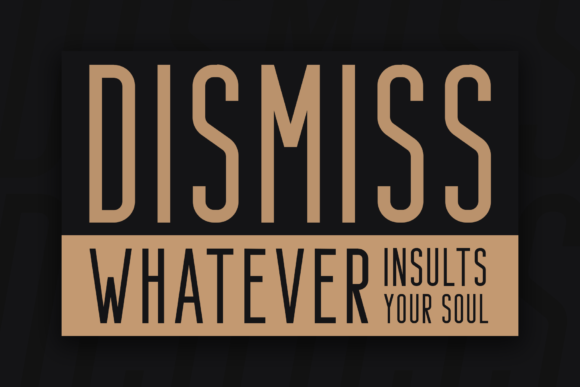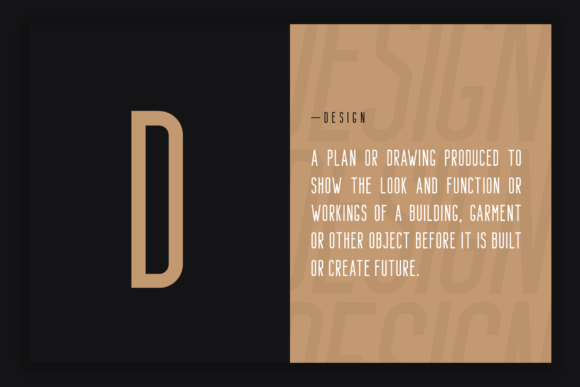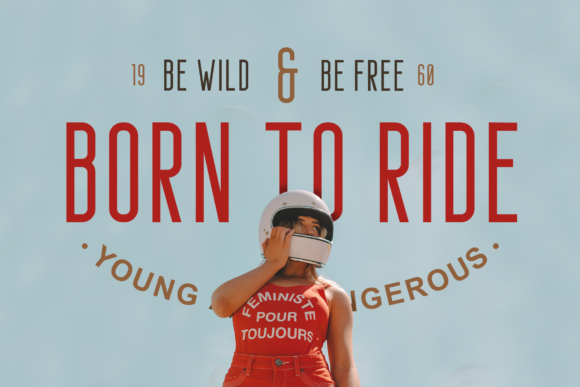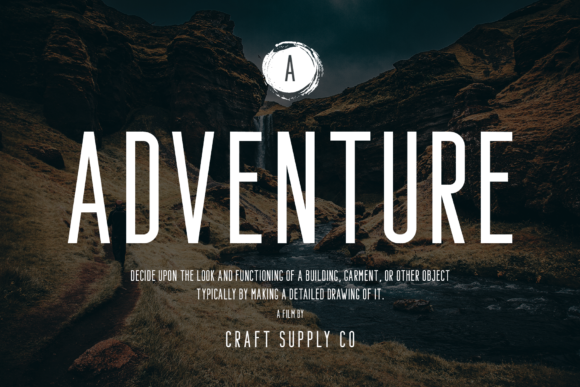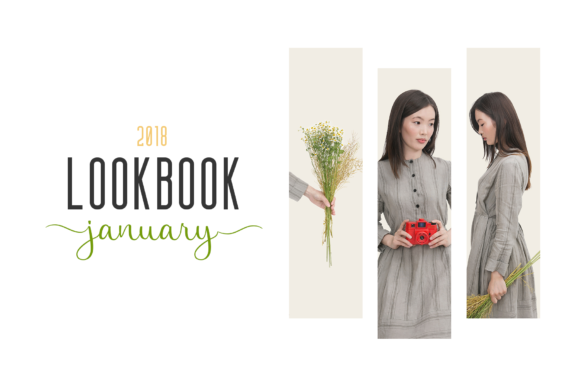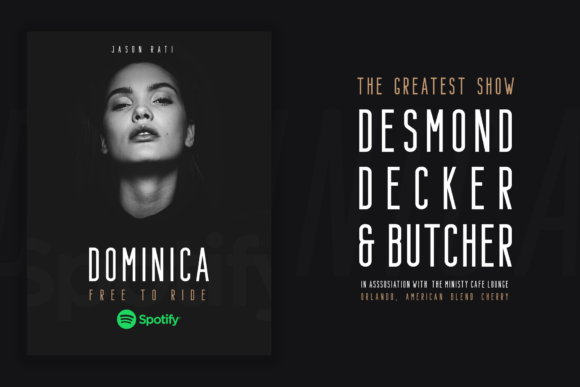
Bondie Font: Elevate Your Designs with Elegance and Sophistication
In the world of typography, fonts play a crucial role in conveying the tone and aesthetic of a design. For designers and crafters looking to add a touch of elegance and modernity to their projects, the Bondie Font is an excellent choice. This stunning condensed sans serif font is perfect for a wide range of applications, from art and book designs to craft projects and wedding materials.
What is Bondie Font?
Bondie is an elegant condensed sans serif font that exudes sophistication and style. Its sleek lines and modern aesthetic make it an ideal choice for designers seeking to create visually striking designs. The font’s condensed nature allows for efficient use of space, making it perfect for titles, headings, and other design elements where space is limited.
Characteristics of Bondie Font
Bondie Font boasts several characteristics that make it a versatile and desirable choice for designers:
- Elegant and Sophisticated: Bondie’s sleek lines and modern aesthetic give it an air of elegance and sophistication, perfect for high-end designs.
- Condensed Sans Serif: The font’s condensed nature and sans serif design make it highly legible, even at smaller sizes.
- Trendy and Modern: Bondie’s modern aesthetic ensures that your designs will look fresh and on-trend.
- Versatile: The font’s neutral design makes it suitable for a wide range of applications, from art and book designs to craft projects and weddings.
Use Cases for Bondie Font
Bondie Font is suitable for a variety of design projects, including:
- Art and Book Designs: Add a touch of elegance to your book covers, titles, and interior designs with Bondie’s sophisticated aesthetic.
- Craft Designs: Elevate your craft projects, such as DIY tutorials, patterns, and instructions, with Bondie’s modern and trendy feel.
- Weddings and Events: Use Bondie to create stunning wedding invitations, programs, and other event materials that exude elegance and sophistication.
- Modern Envelope Lettering: Add a touch of modernity to your envelope lettering with Bondie’s sleek and condensed design.
Why Choose Bondie Font?
With so many fonts available, why choose Bondie? Here are just a few reasons:
- Unique and Distinctive: Bondie’s elegant and condensed design sets it apart from more traditional fonts.
- Highly Legible: The font’s sans serif design and condensed nature ensure that it remains legible, even at smaller sizes.
- Easy to Pair: Bondie’s neutral design makes it easy to pair with other fonts, allowing you to create stunning font combinations.
Tips for Using Bondie Font
To get the most out of Bondie Font, follow these tips:
- Use it as a Title Font: Bondie’s elegant and condensed design make it perfect for titles and headings.
- Experiment with Font Sizes: Bondie’s condensed nature allows for efficient use of space, making it suitable for a range of font sizes.
- Pair it with Other Fonts: Bondie’s neutral design makes it easy to pair with other fonts, allowing you to create stunning font combinations.
In conclusion, Bondie Font is a versatile and elegant condensed sans serif font that is perfect for designers and crafters looking to add a touch of sophistication and modernity to their projects. With its sleek lines, modern aesthetic, and highly legible design, Bondie is sure to elevate your designs and make them stand out.